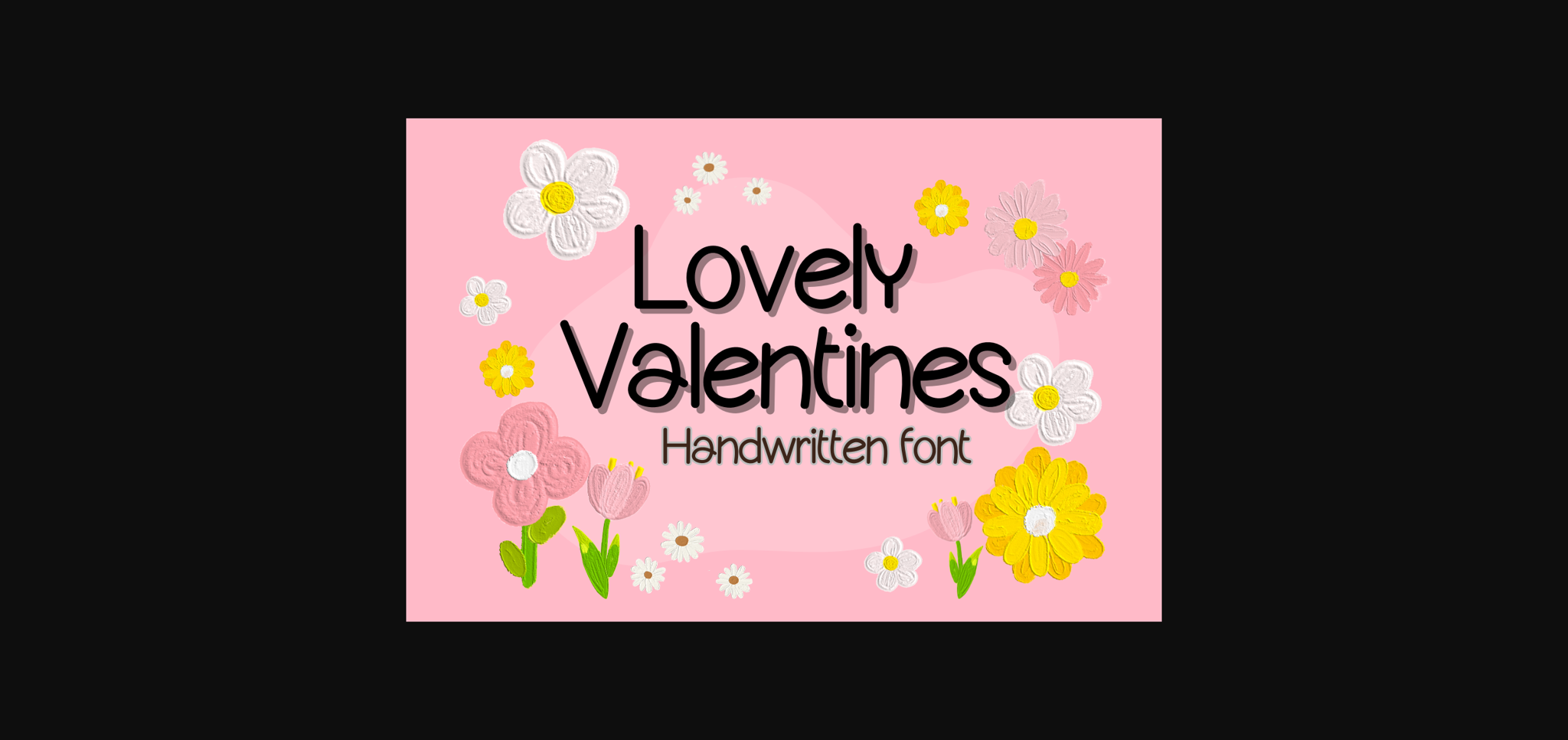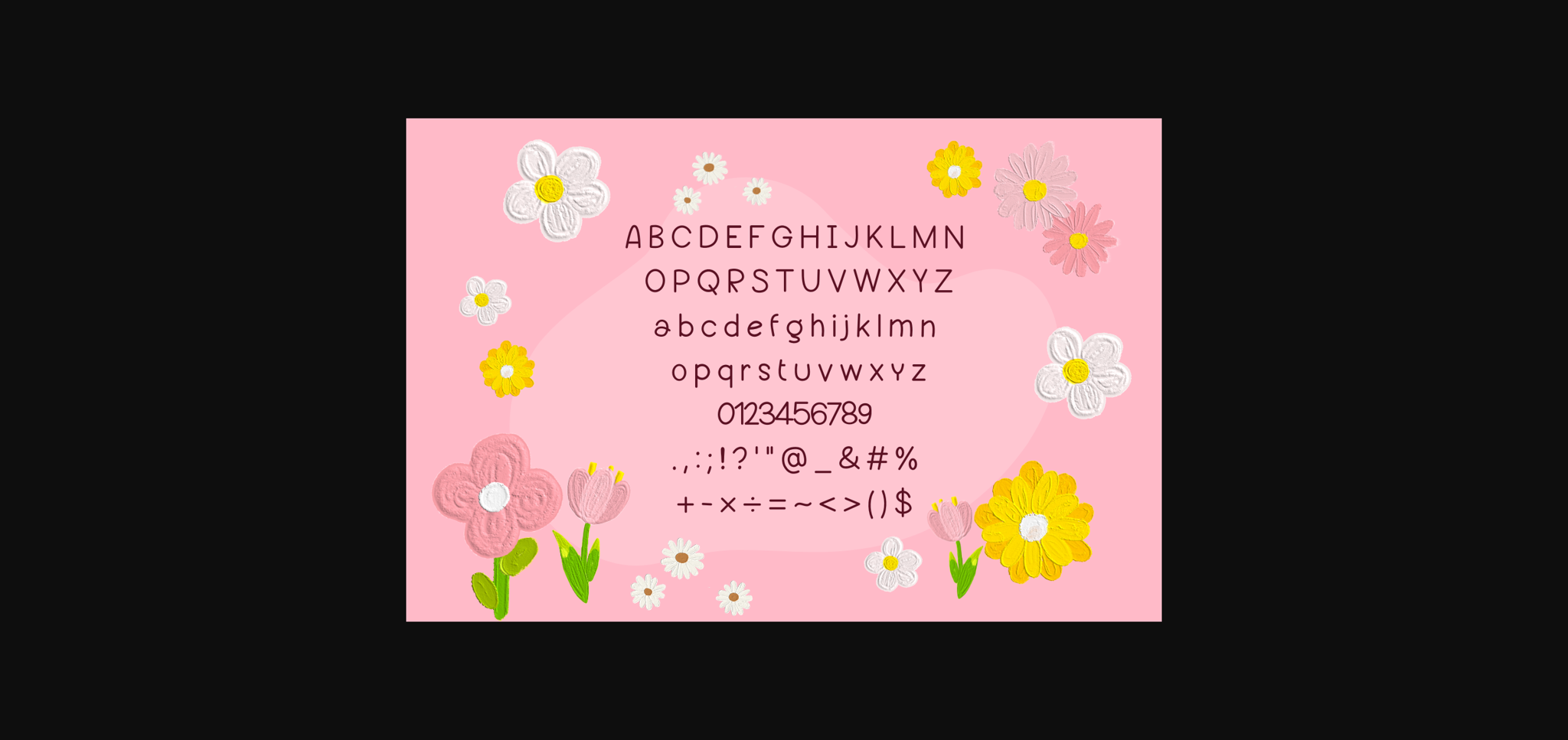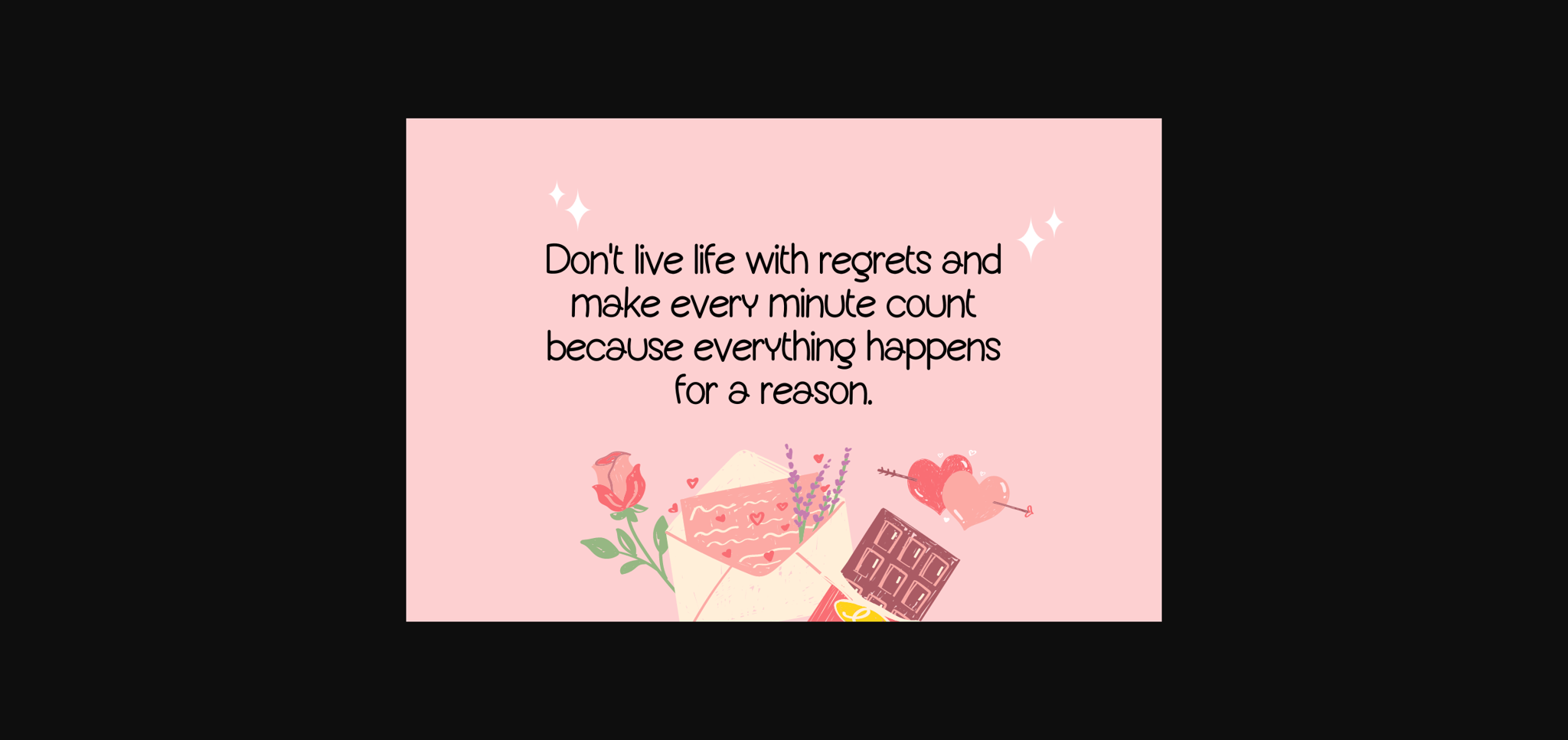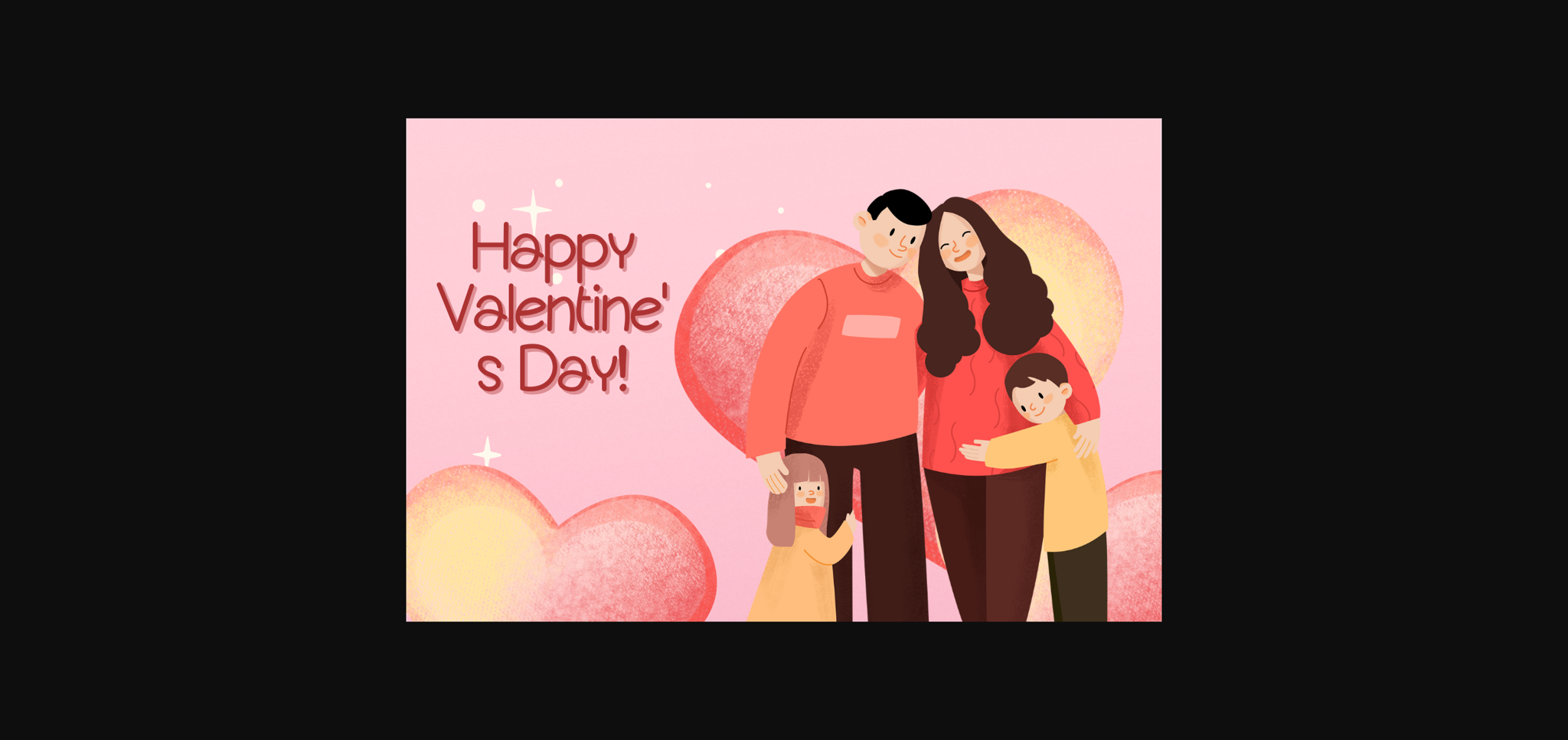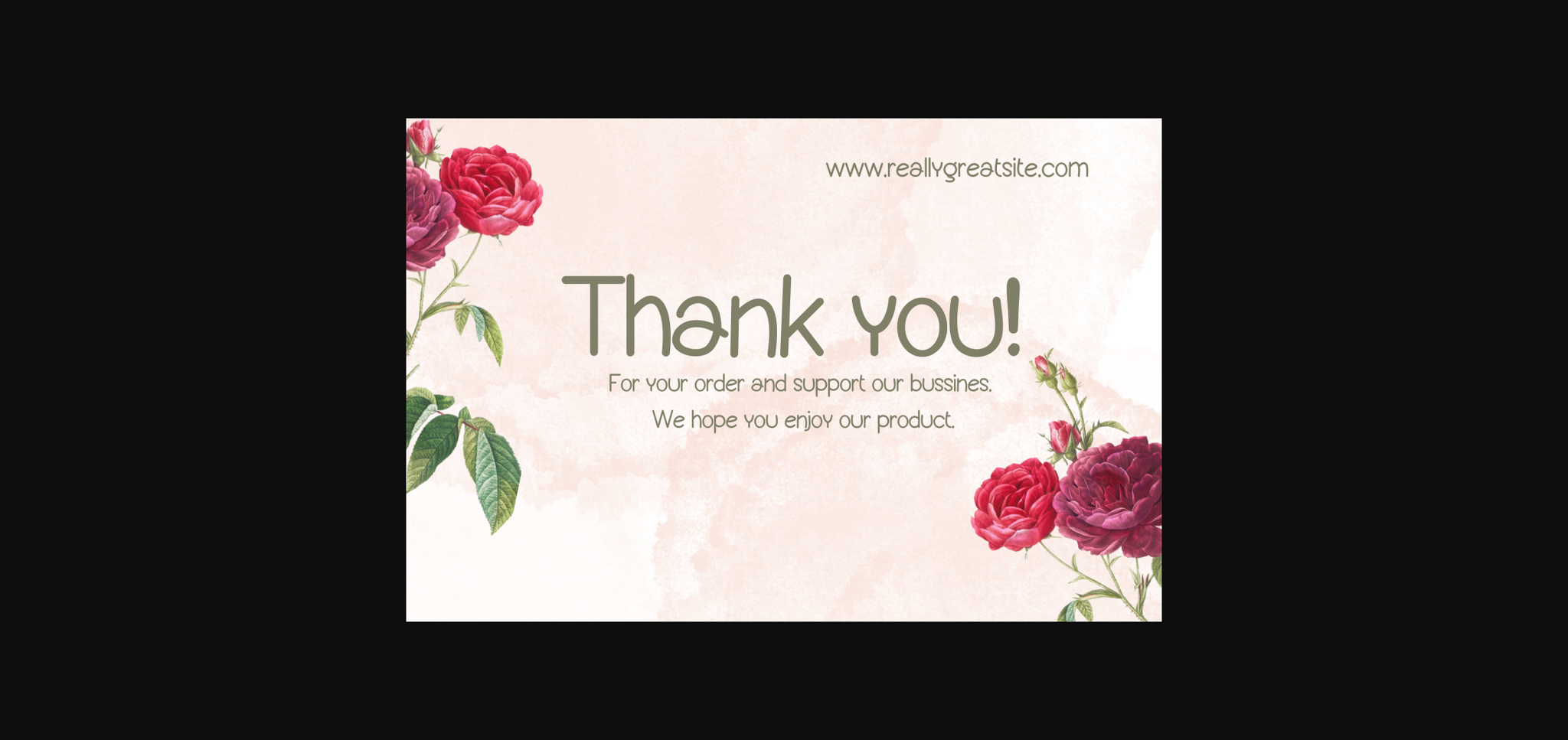
Lovely Valentines Font
About Lovely Valentines Font
Lovely Valentines is a handwritten font. You can use it for taking notes, writing a diary, or making greeting cards. However, you can still use it for other designs, such as banners, content, mugs, cards, shirts, stationery, social media posts, and more!